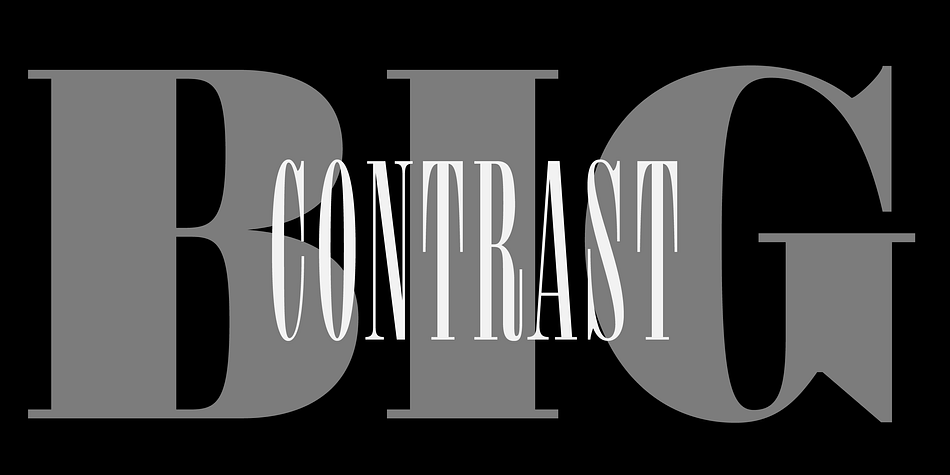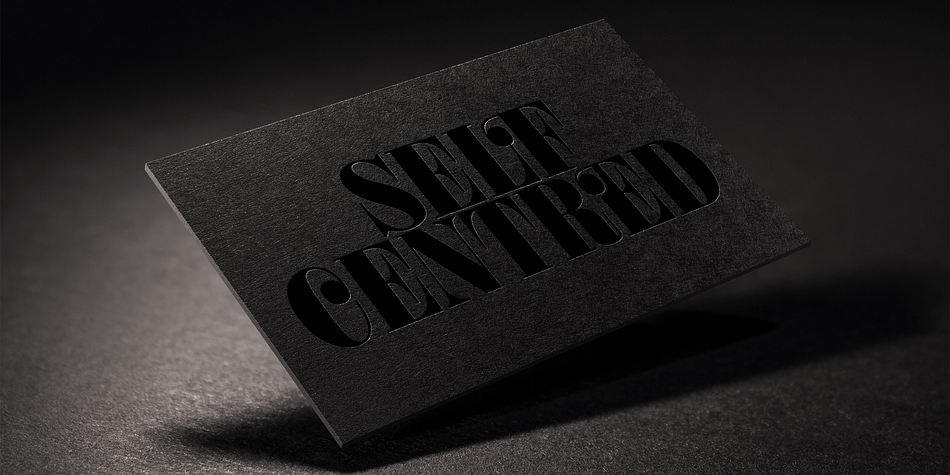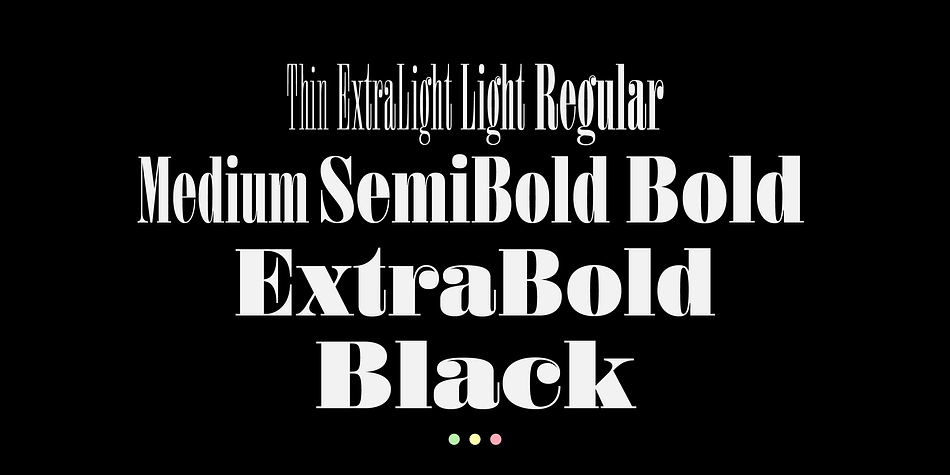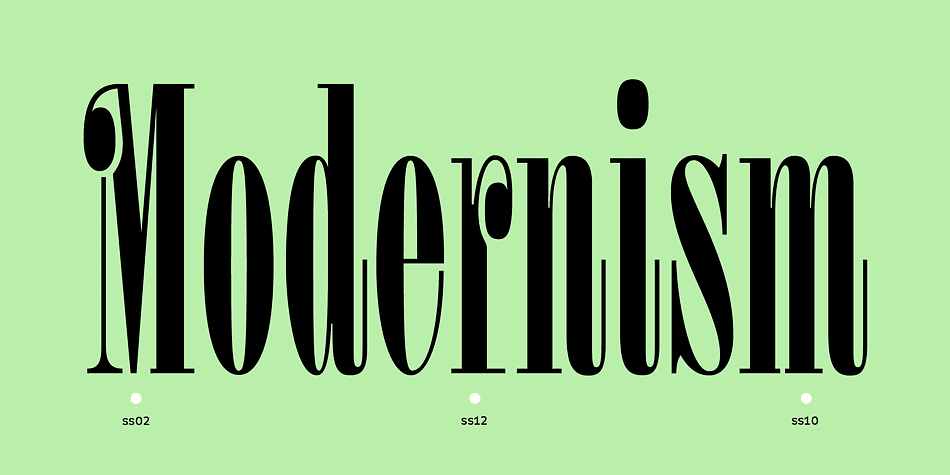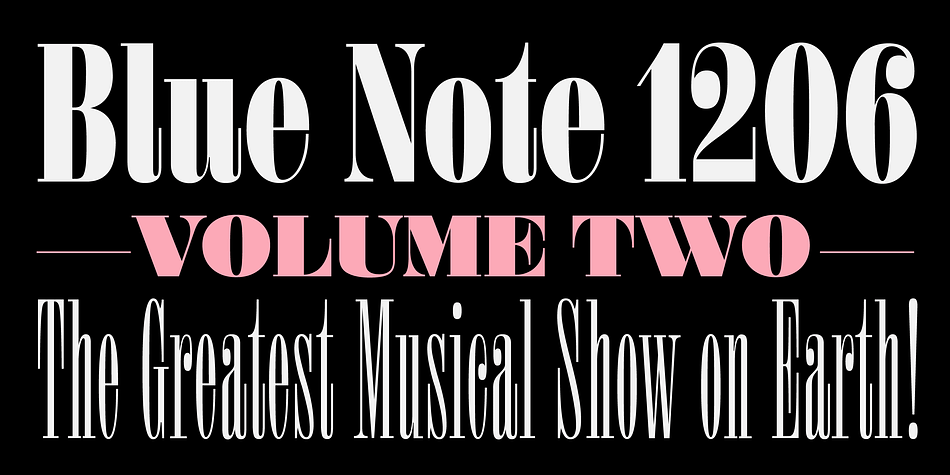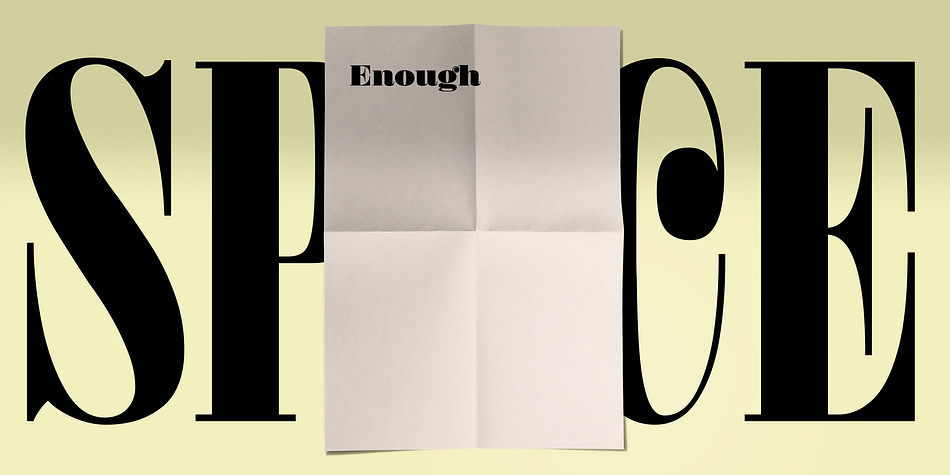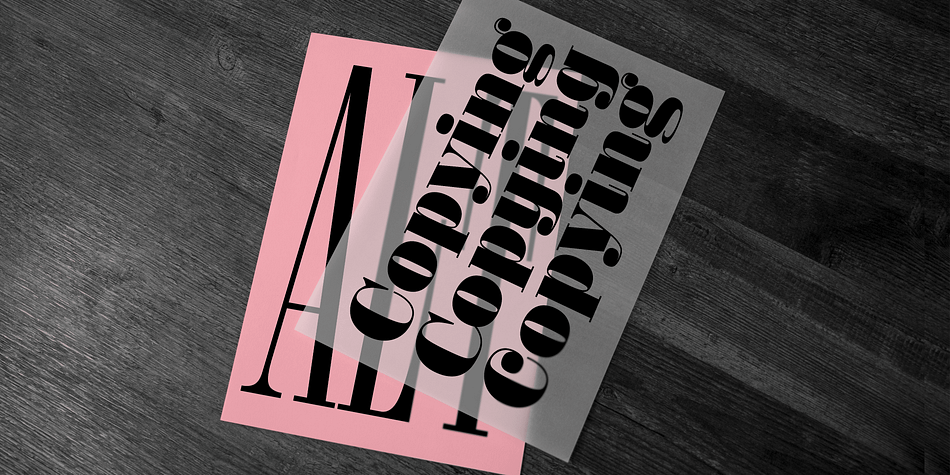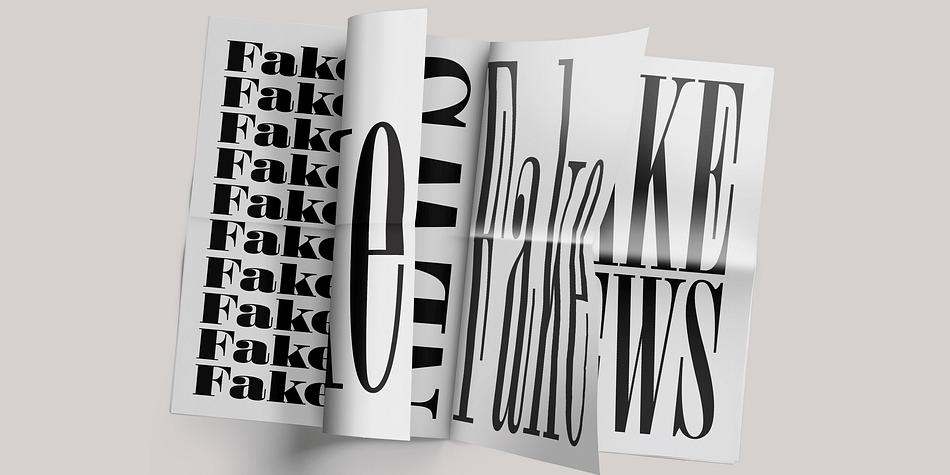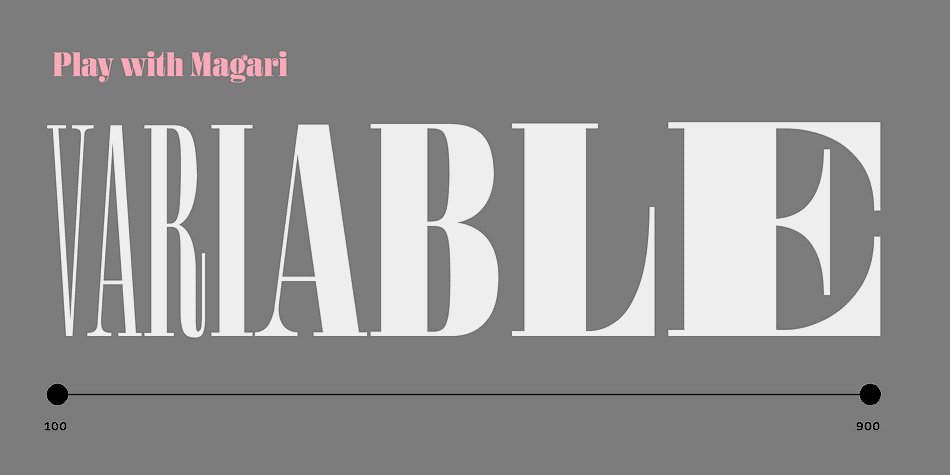
Designed by Alejandro Paul, Magari is a display serif and serif font family. This typeface has ten styles and was published by Sudtipos.
Partially inspired by the mid XIX century german condensed serif typefaces –and a clear connection to Italian classics– Magari extrapolates that idea of fusion to a new level, getting a unique variable font file, or 9 specific weights. With that in hand the user is able to find the perfect match for any design.
From an ultra compressed thin to an extended black style, Magari is a perfect font for display use. It’s jazzy vibes and wide range of weights make it incredibly perform in advertising, packaging or editorial design, assuring great impact whether it’s thin and tall, or big and bold.
The addition of three kinds of endings for the lowercase –from a serif to two tailed strokes– and two different swash sets for the capitals, Magari lets the user play with infinite results.
The name Magari comes from a lovely italian expression that can be used for many positive things, exactly the same we’ve thought for this new typeface.